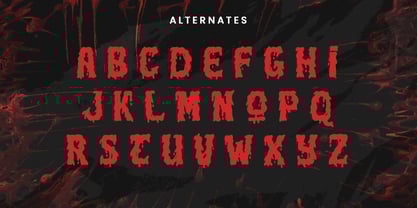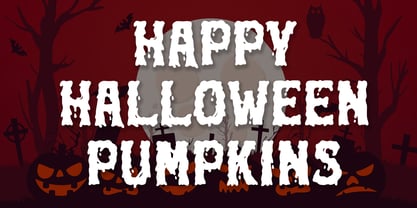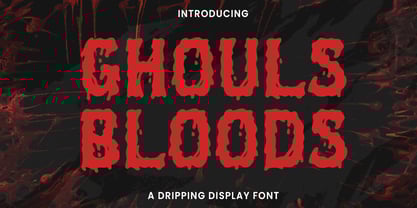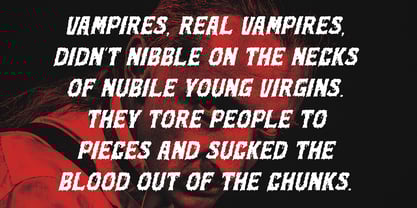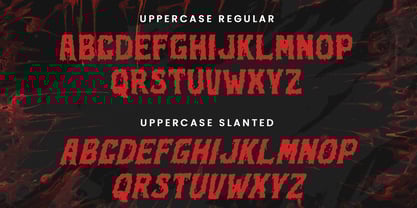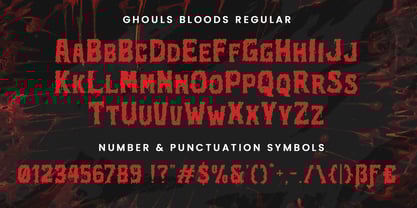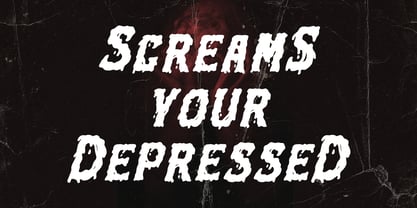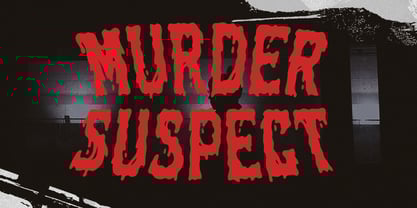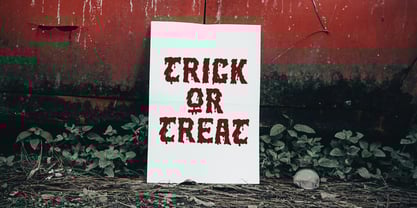
Ghouls Bloods
by AQR Studio
The Ghouls Bloods Font Family was designed by Muhammad Hidayat and published by AQR Studio. Ghouls Bloods contains 2 styles and family package options. More about this family
Ghouls Bloods Dripping Font is a sans-serif type experiment dripping with blood, inspired by horror and scary design styles. It comes in two styles—Regular and Slanted—and includes basic alphabet, symbols, punctuation, and alternate characters.
This font is perfect for product packaging, print designs, and movie titles, especially with horror-themed concepts. It’s also great for any creative project that calls for a bold, dark, and wild look.
Let your imagination run free—and let your designs bleed with style.
Designers: Muhammad Hidayat
Foundry: AQR Studio